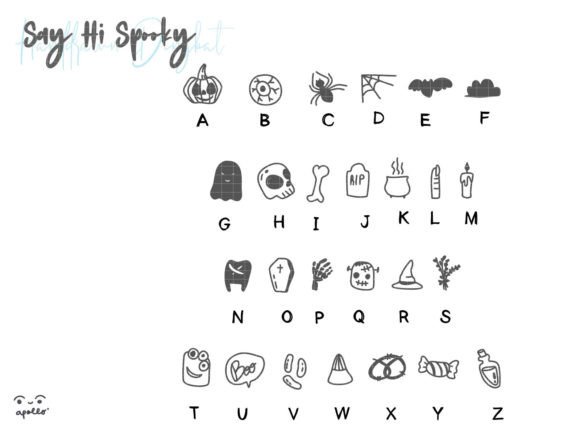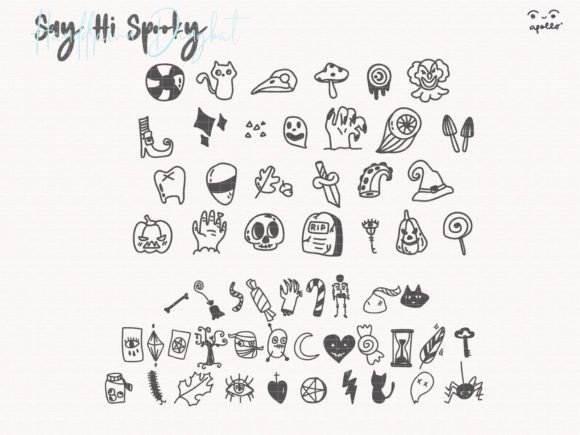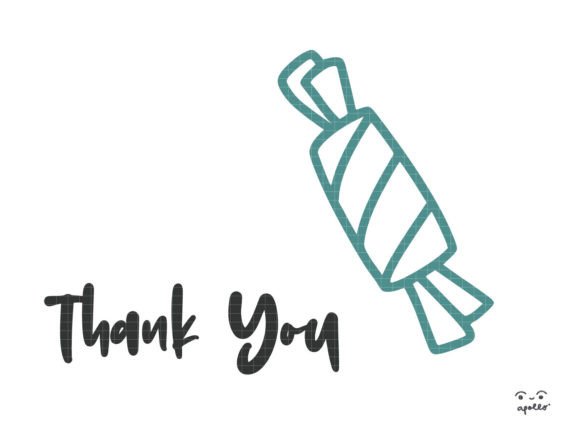
Say Hi Spooky Font – Free Download
Introduction to Say Hi Spooky Font
Say Hi Spooky is a hand-drawn doodle dingbats font.
Its fun and Halloween party elements make this font the perfect choice for many purposes, such as invitation embellishments, wall art, beverage logos, seamless patterns, etc .
Key Features of Say Hi Spooky Font